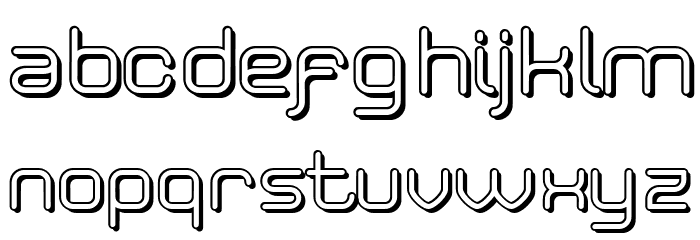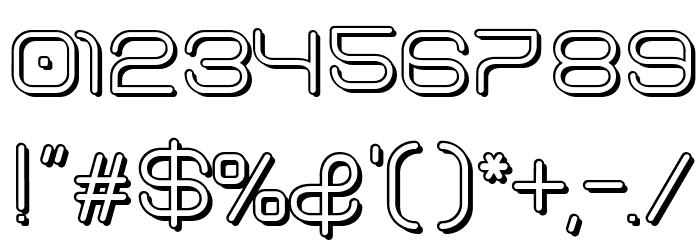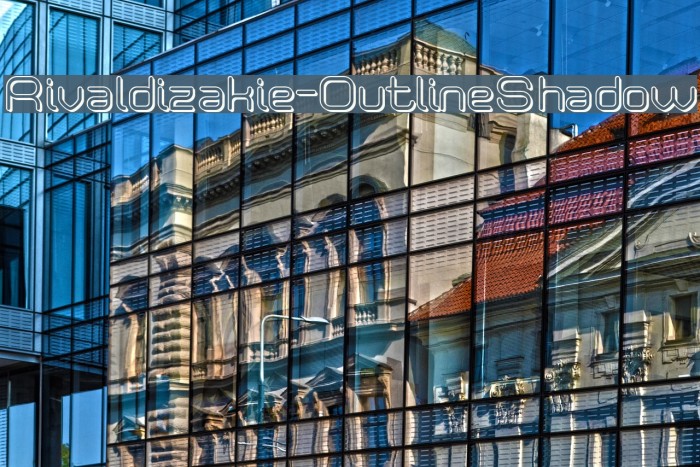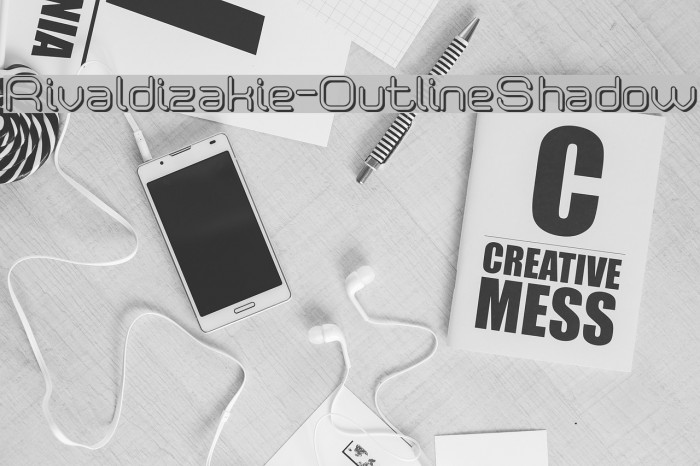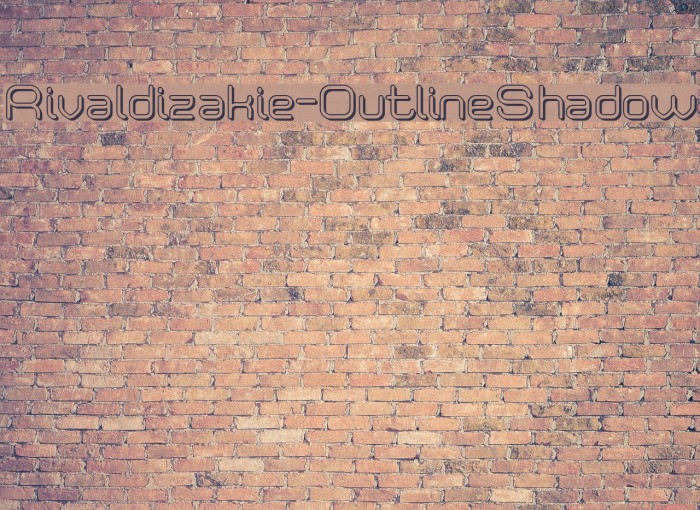
Rivaldizakie-OutlineShadow Font
This font features a unique outline shadow style, giving each character a three-dimensional appearance. The letters are formed with a consistent line thickness, creating a clean and modern look. The uppercase and lowercase letters maintain a uniform height, contributing to a balanced and cohesive design. The numerals and special characters follow the same stylistic approach, ensuring a harmonious appearance across all glyphs. The font's geometric structure and rounded edges add a touch of softness, making it suitable for a variety of design applications. Its distinct outline effect makes it stand out, ideal for projects that require a bold visual impact.
A modern outline shadow font with a geometric and three-dimensional appearance.
- Proposed Projects: Ideal for branding, posters, headlines, and digital artwork that require a striking and modern aesthetic.